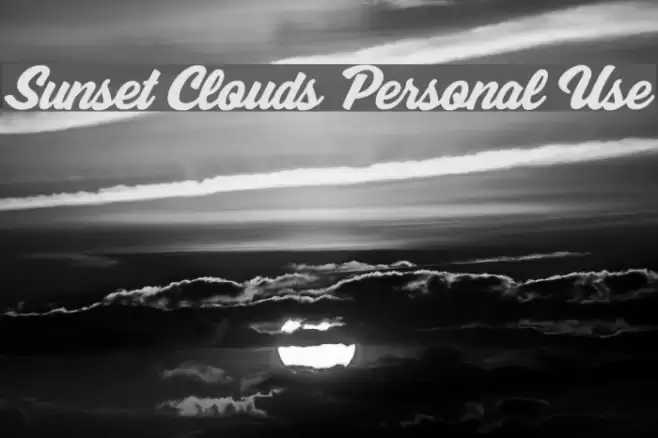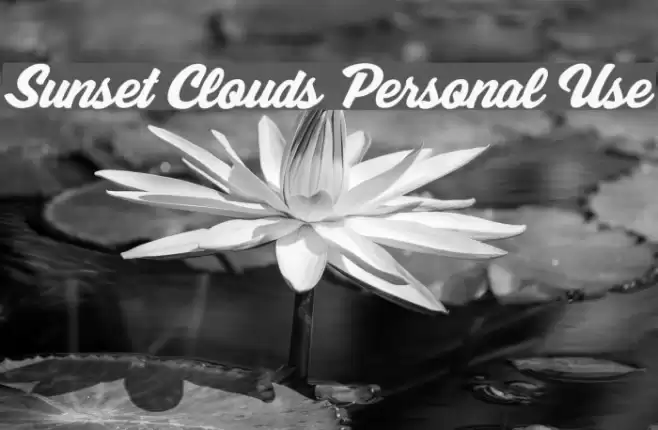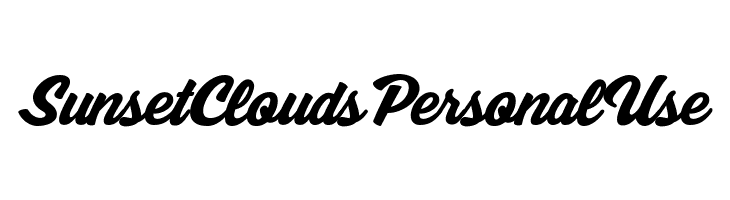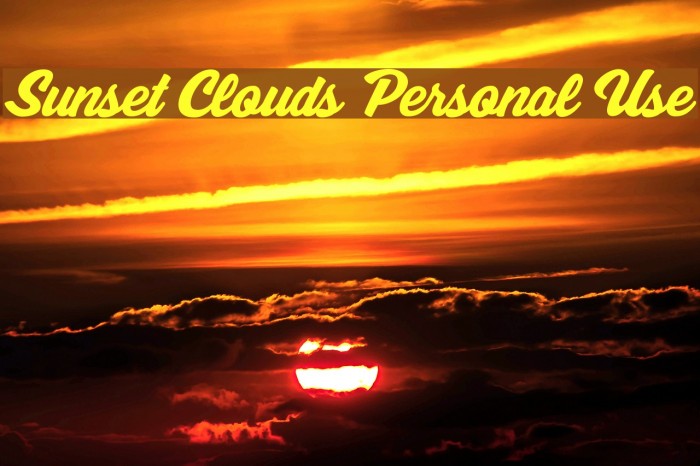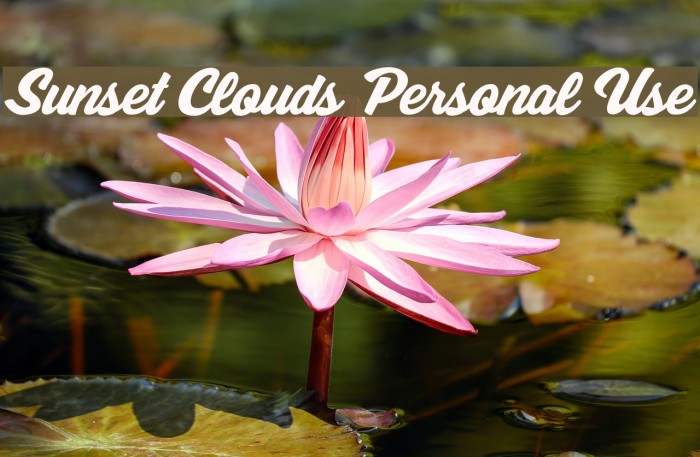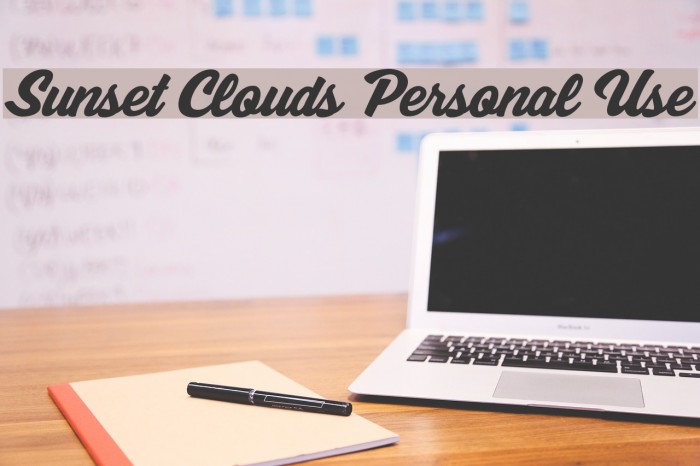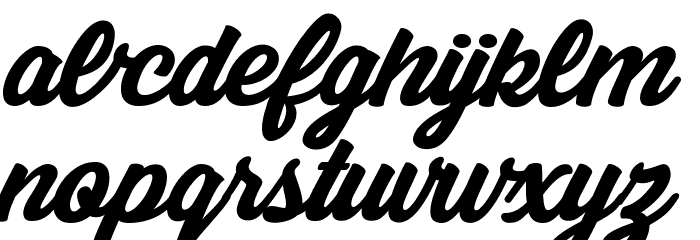
Sunset Clouds Personal Use Font
Sunset Clouds Personal Use Description
This font features a bold, cursive style with a smooth and flowing appearance. The letters are connected, creating a seamless and elegant look. The uppercase letters are slightly larger and more pronounced, while the lowercase letters maintain a consistent flow. The font has a modern yet classic feel, making it versatile for various design projects. The strokes are thick, providing a strong visual impact, and the overall style is both decorative and functional. The font is suitable for personal use, adding a touch of sophistication to any text.
A bold, cursive font with a smooth, flowing style from Uncategorized fonts.
- Proposed Projects: Ideal for invitations, greeting cards, logos, and branding materials.
- Use Case: Logos, Headlines, Decorative text